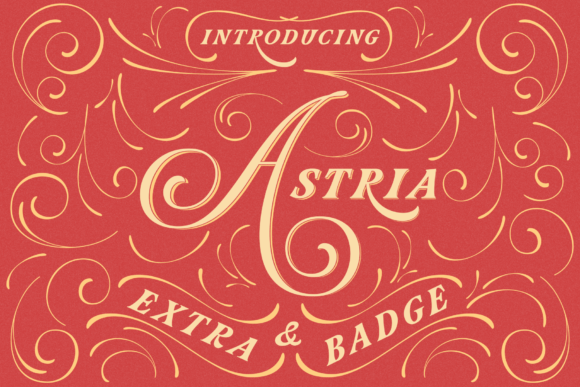
Introducing Astria Font, a masterpiece of digital calligraphy that combines classic vintage allure with a contemporary, bold touch. Designed by RedyStudio, this display font is a visual symphony that will transform your creative projects into captivating works of art.
Astria's meticulously crafted letters possess an undeniable charm that exudes elegance and sophistication. Whether you're a seasoned designer or a creative enthusiast, Astria will elevate your designs with its unique personality and timeless appeal.
With its range of stylistic alternatives and ligatures, Astria offers endless possibilities for customization, allowing you to create designs that truly reflect your vision. Unleash your creativity and let Astria guide you towards design brilliance.